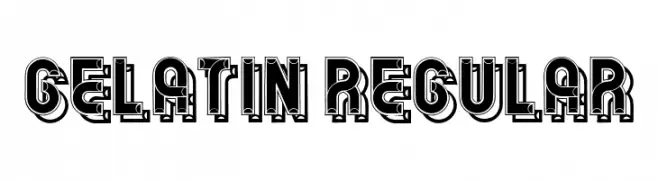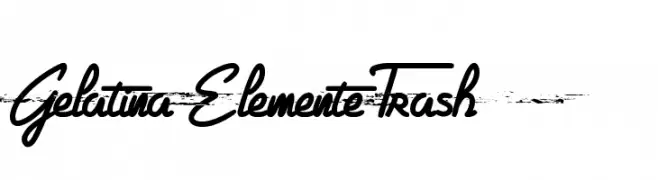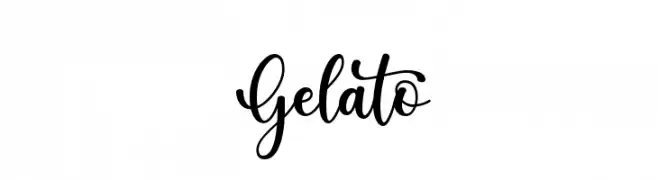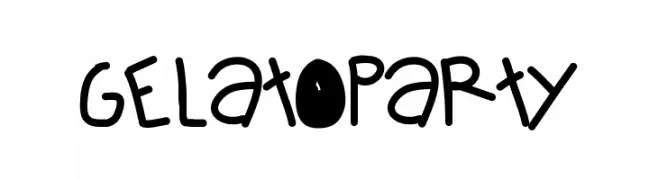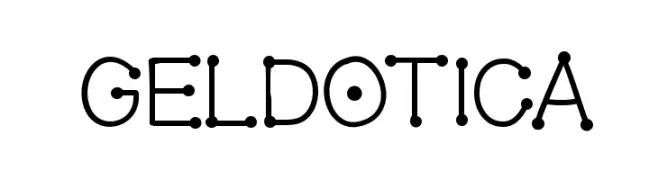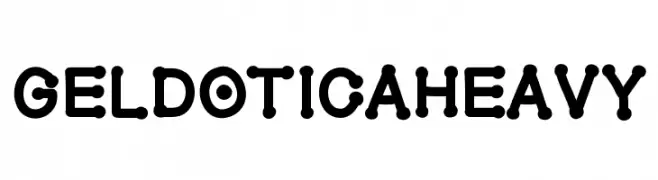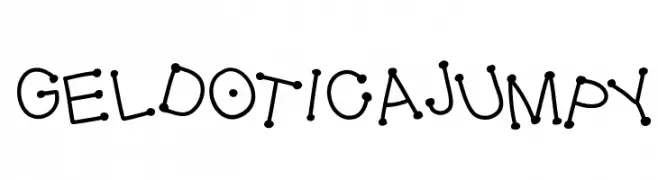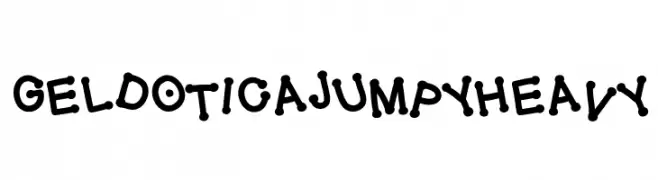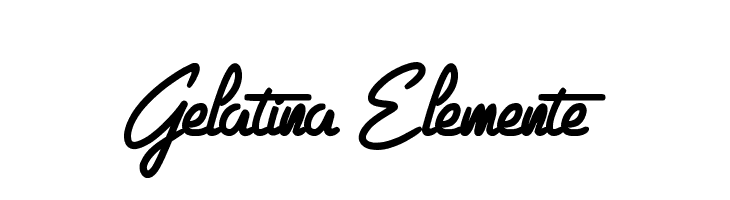
A bold, decorative font with a three-dimensional effect and vintage-modern aesthetics.
A bold, cursive font with a modern and elegant style.
A bold, expressive handwritten font with dynamic strokes.
A playful and elegant script font with a handwritten feel.
A bold, flowing script font with a lively and energetic style.
A playful, handwritten font with a whimsical and friendly style.
A playful, dot-accented font with bold, rounded characters.
A bold, playful font with rounded edges and a heavy weight.
A playful, dot-connected font with a whimsical and lively style.
A bold, playful font with rounded characters and a whimsical dot pattern.